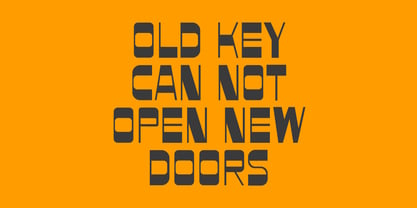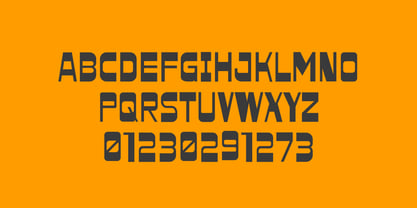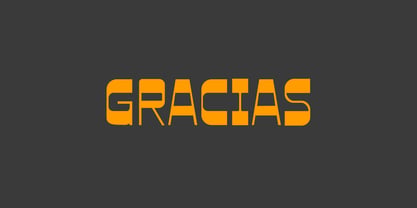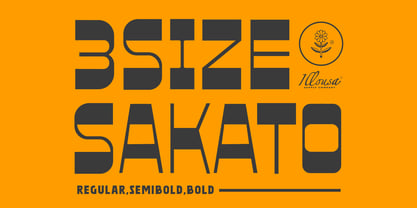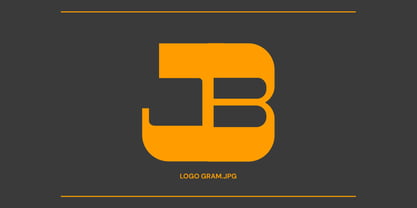
SCC Sakato
by Illousa Supply Co
The SCC Sakato Font Family was designed by Ilham Afrora and published by Illousa Supply Co. SCC Sakato contains 3 styles and family package options. More about this family
Sakato Vintage Print Typeface is a bold and expressive serif font inspired by classic print aesthetics and rugged character. Designed with textured and clean styles, it brings timeless vintage feel to headlines, posters, apparel and branding projects.
KEY FEATURES : Vintage print-inspired serif typeface, Clean & textured font styles, Strong display presence for headlines and titles, Multilingual characters included
Designers: Ilham Afrora
Foundry: Illousa Supply Co